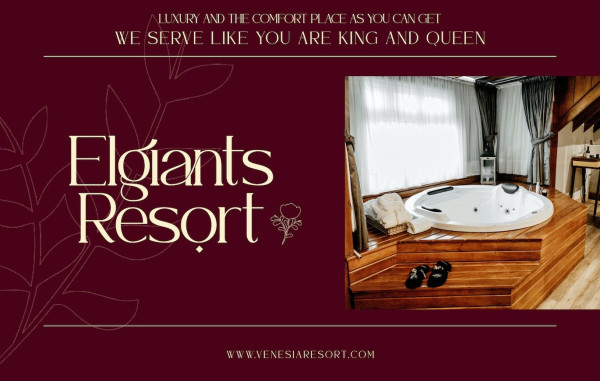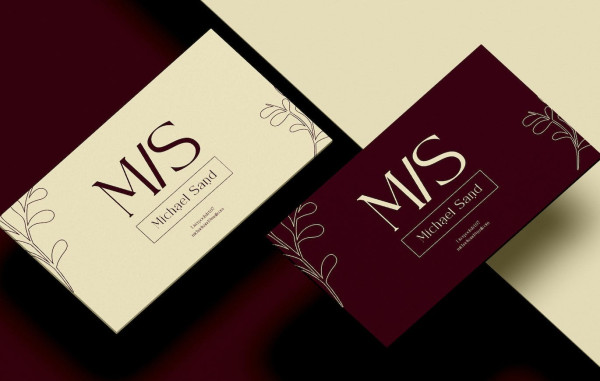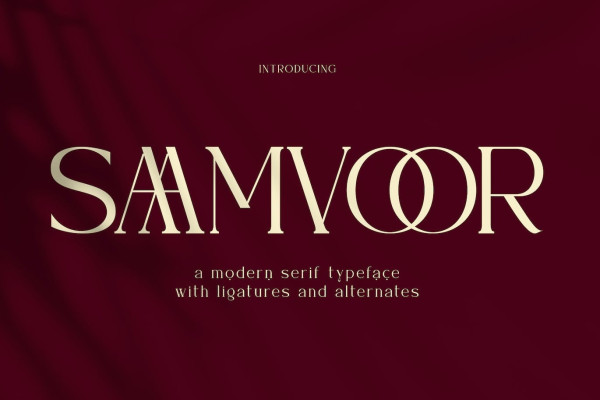
Saamvoor Font
Saamvoor Font is perfect for your up coming projects. Such as luxury logo and branding, classy editorial design, magazine, fashion promotional, boutique branding, stationery design, blog design, modern advertising design, card invitation, art quote, home decor, book/cover title, special events and any more.